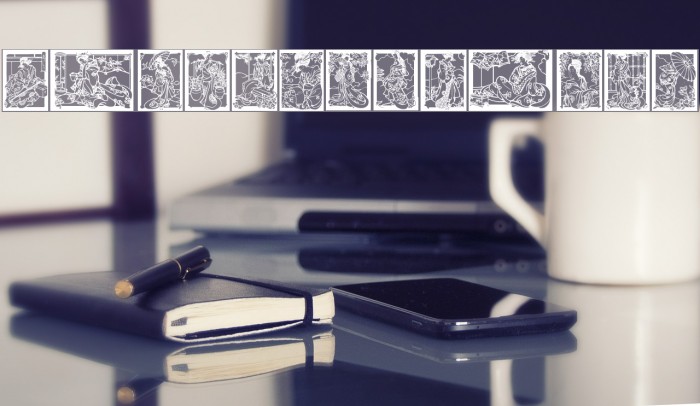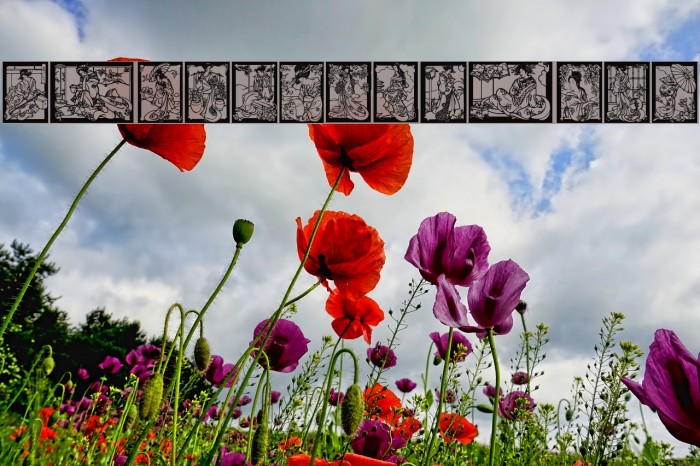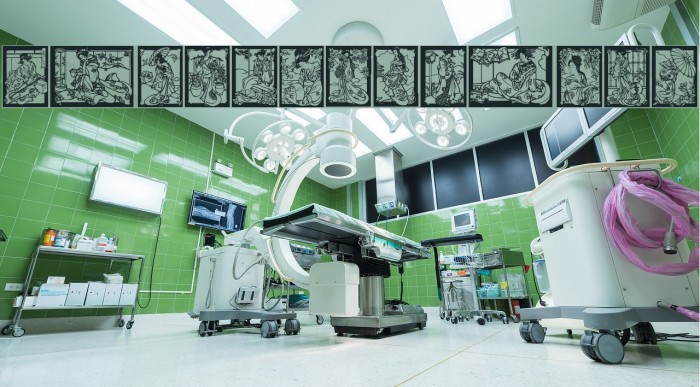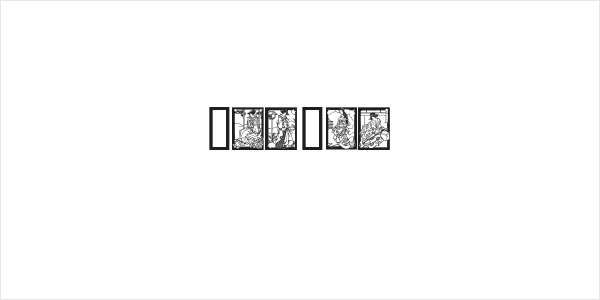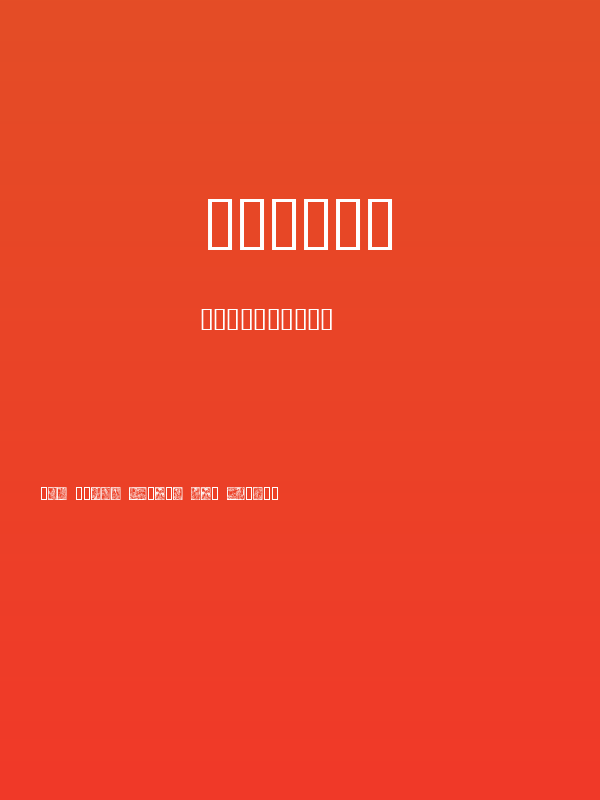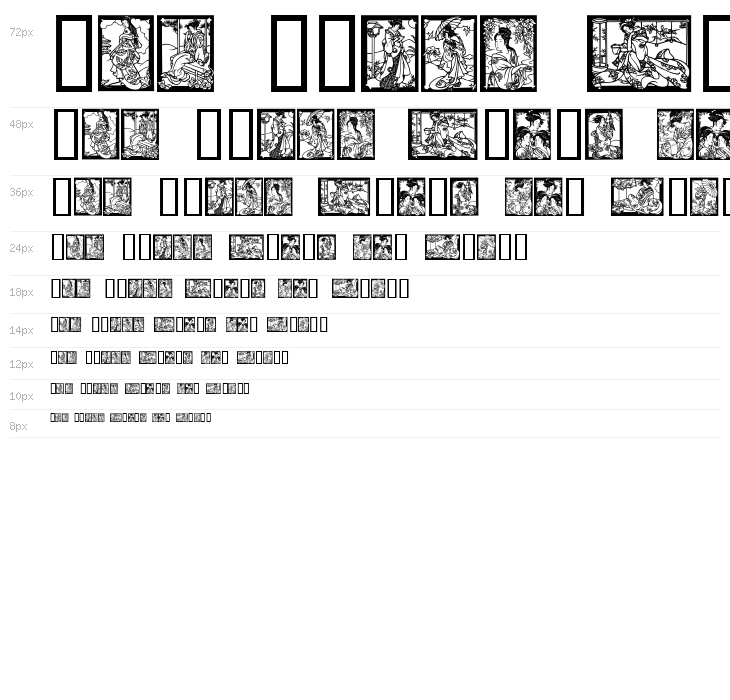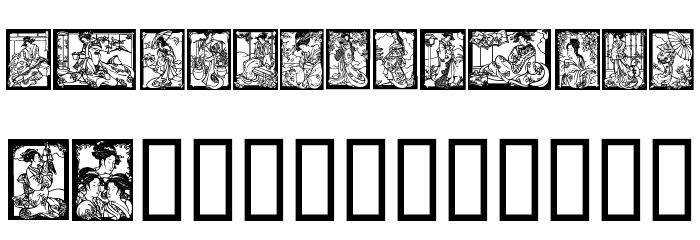
Geisha Font
Geisha Description
This is not a valid font. The image contains intricate illustrations of geishas within rectangular frames, rather than a traditional typeface. Each character space is filled with detailed artwork depicting scenes of geishas in various poses and settings, showcasing traditional attire and cultural elements. The design is highly decorative and artistic, focusing on visual storytelling rather than textual representation.
| Use Case | Art, Decoration |
| Proposed Projects | Could be used for decorative art projects, cultural exhibitions, or themed graphic design work. |